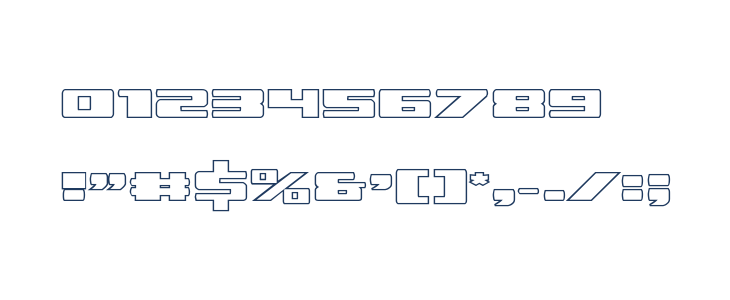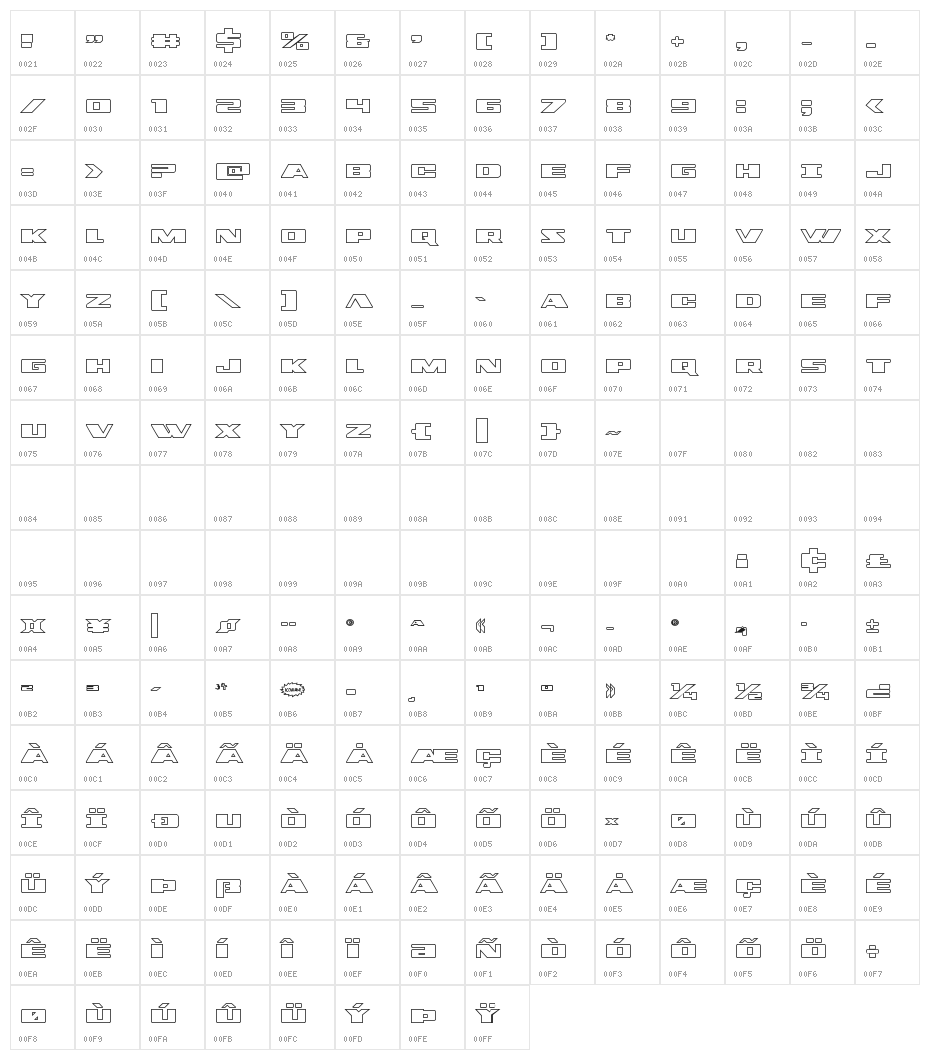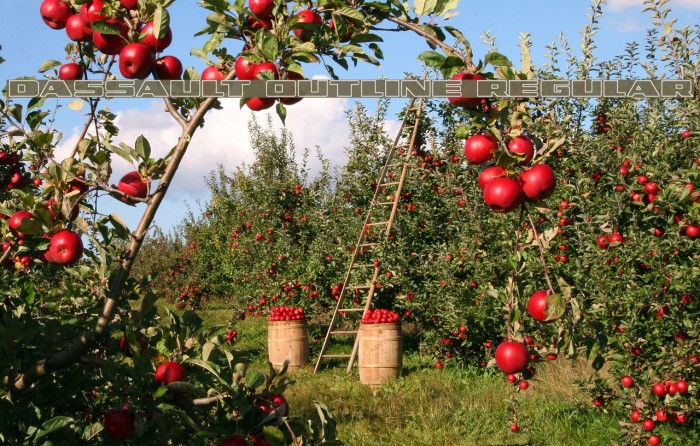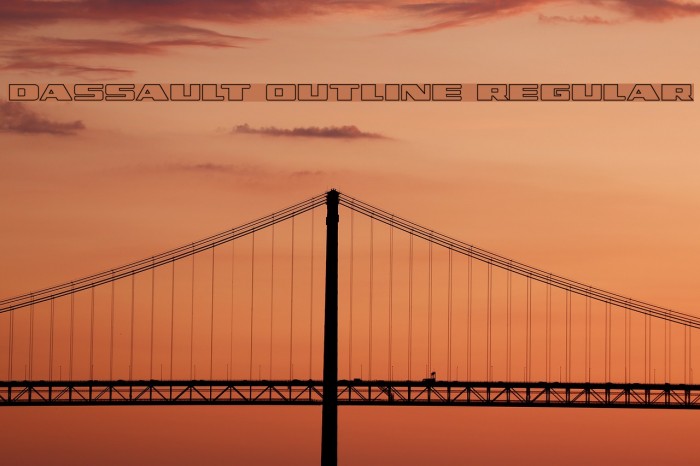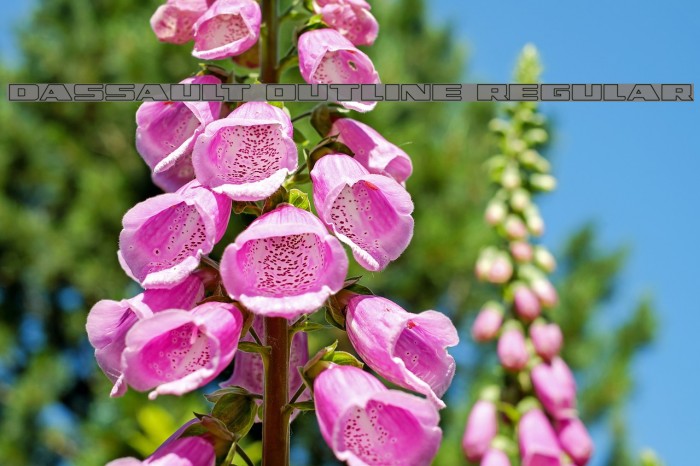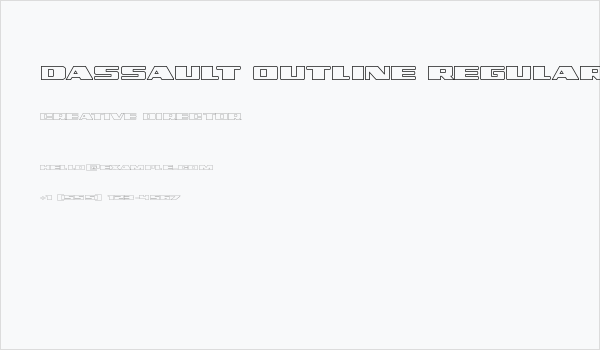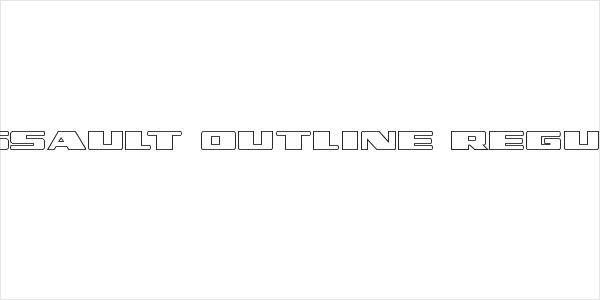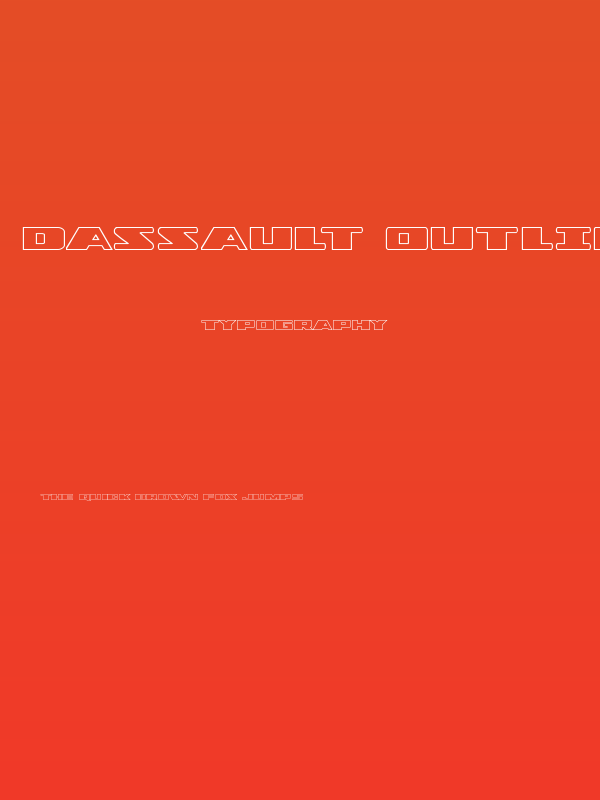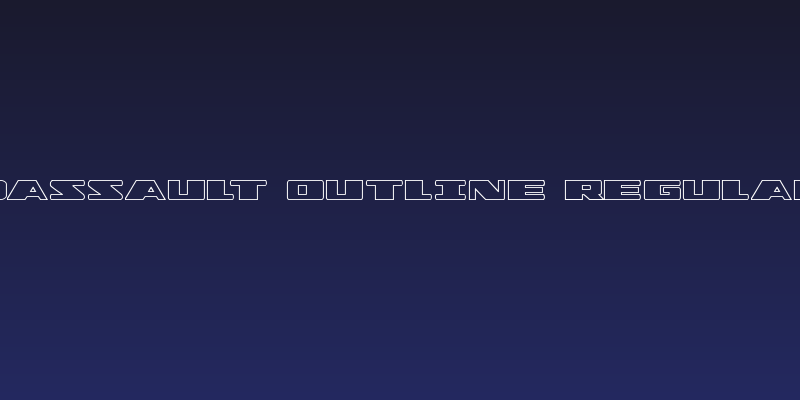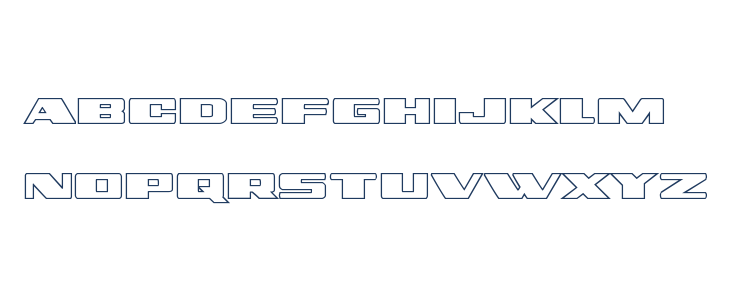
Dassault Outline Regular Font
Dassault Outline Regular Description
This font features a bold, geometric outline style that emphasizes its modern and futuristic aesthetic. The characters are constructed with clean, sharp lines and angles, creating a sense of precision and clarity. The uppercase letters are particularly striking, with a uniform height and width that contribute to a cohesive and balanced appearance. The numerals and special characters maintain this consistency, ensuring readability and visual harmony across all elements. This font's unique outline design makes it stand out, offering a distinctive look that is both eye-catching and versatile.
| Proposed Projects | Ideal for projects requiring a modern and futuristic touch, such as tech branding, sci-fi posters, video game titles, and innovative product packaging. |